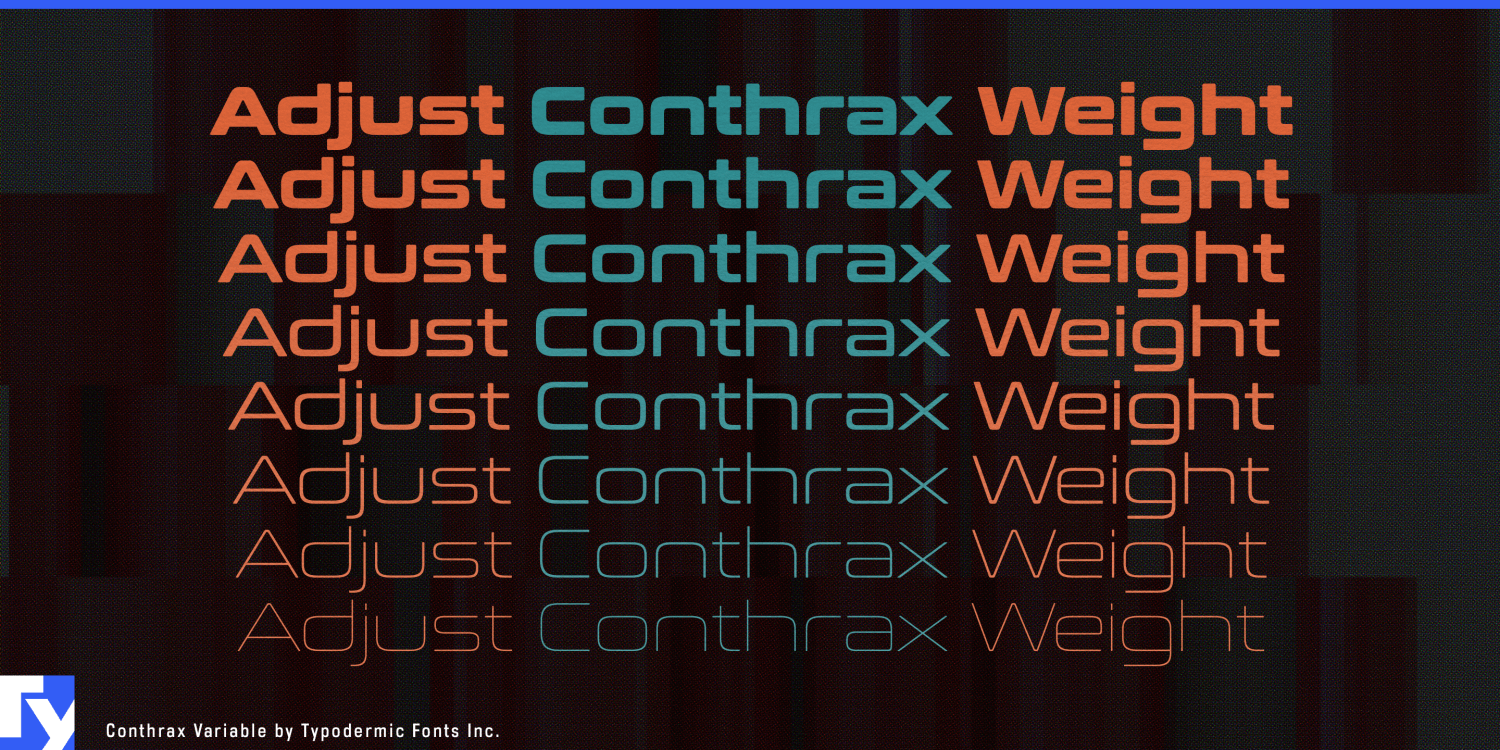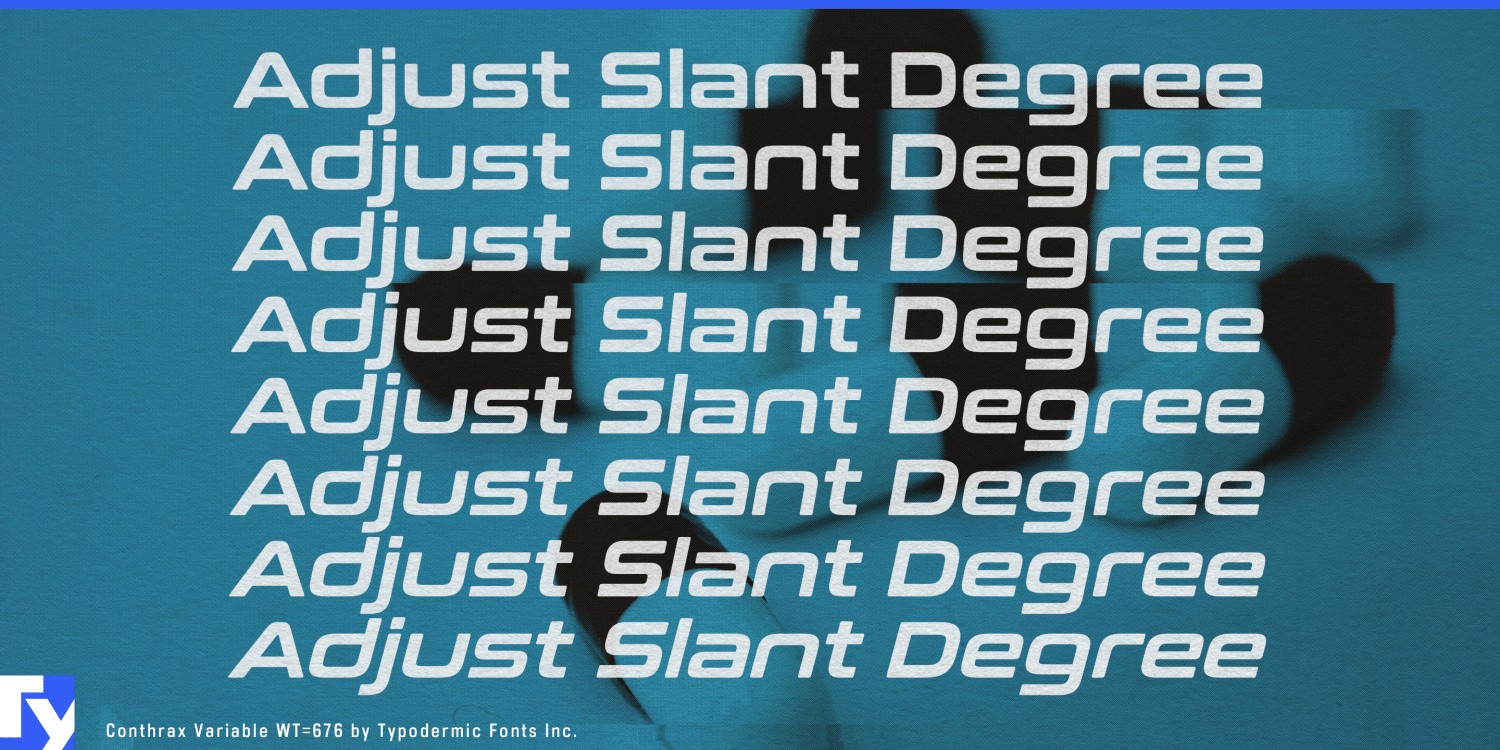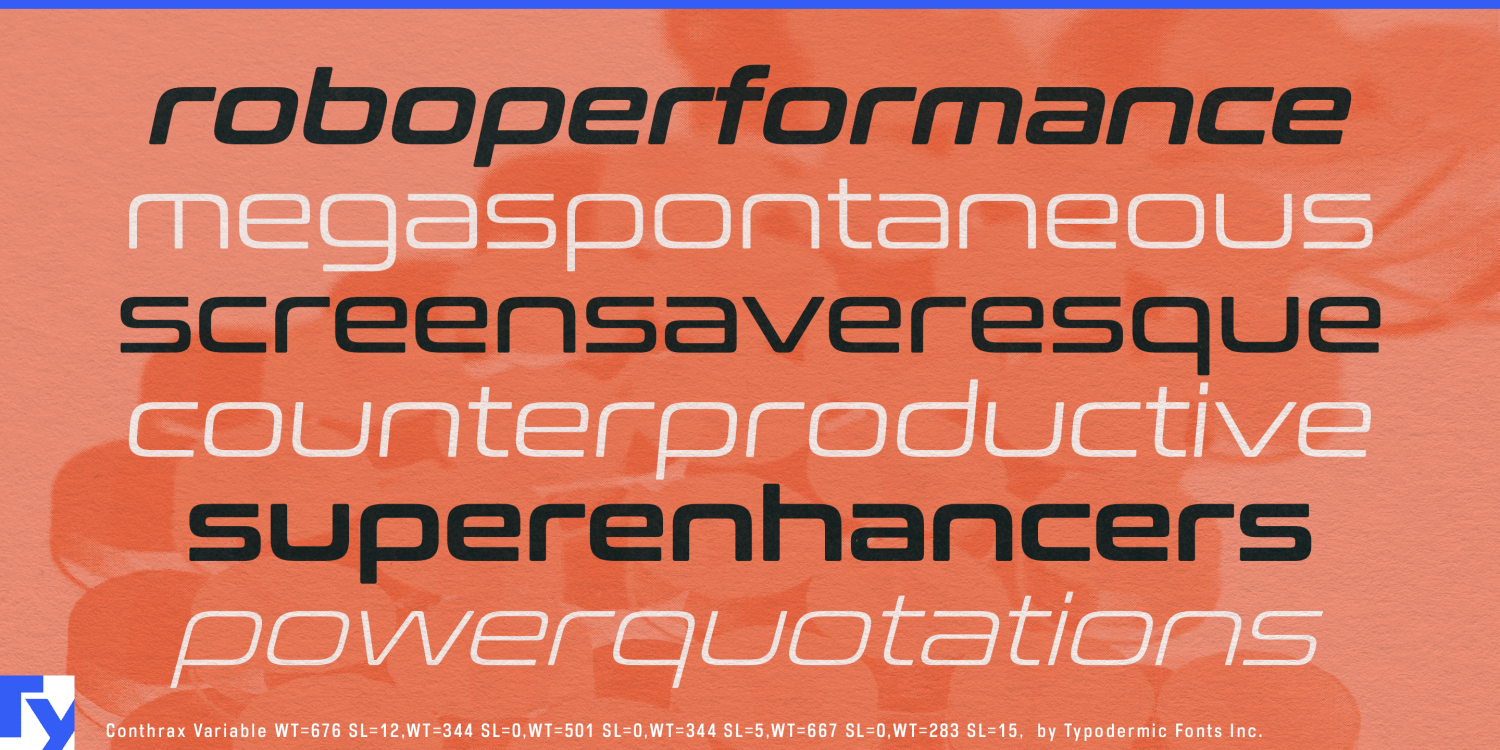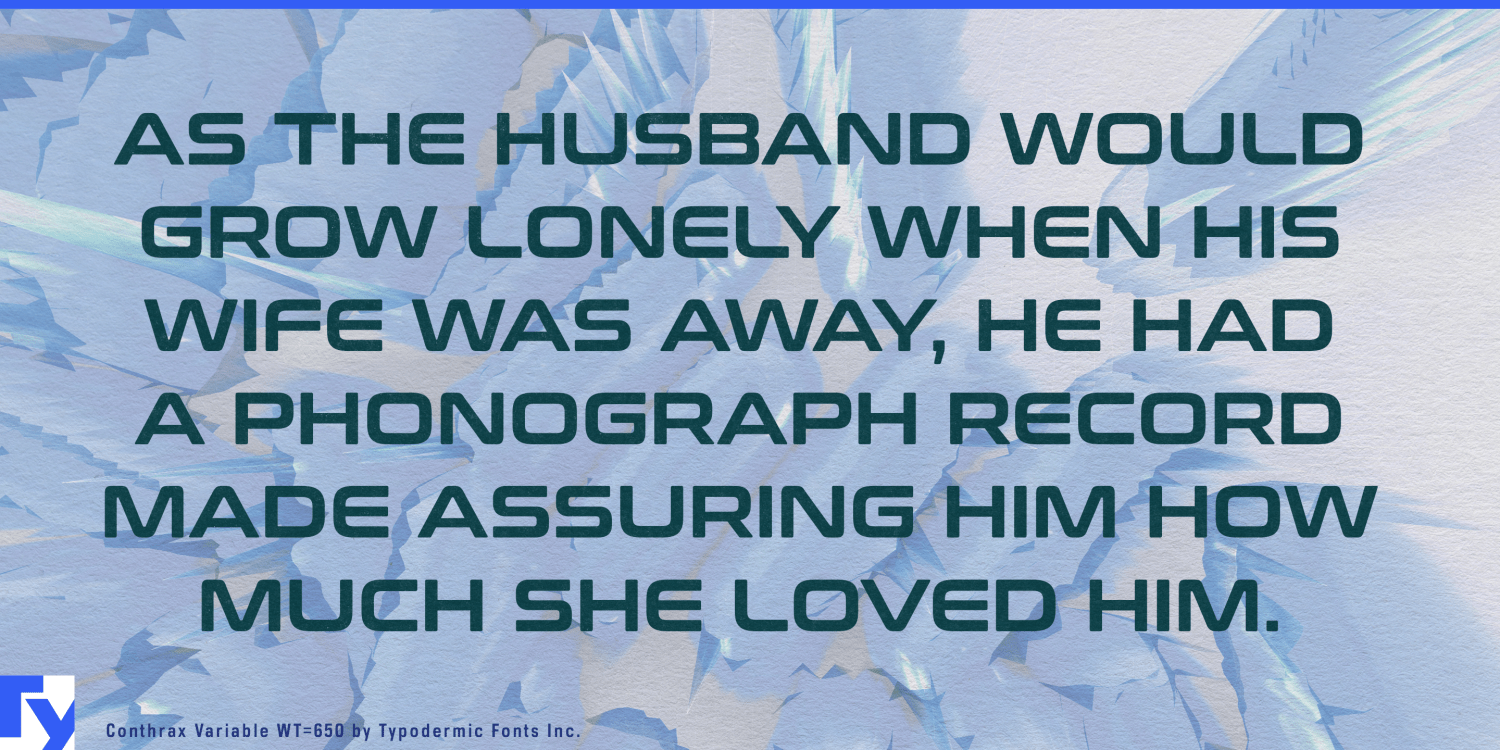
About Conthrax Variable
Step into the future of dynamic typography with Conthrax Variable, where precision meets limitless possibility. This cutting-edge evolution of the acclaimed Conthrax family harnesses the power of variable font technology to push the boundaries of modern…